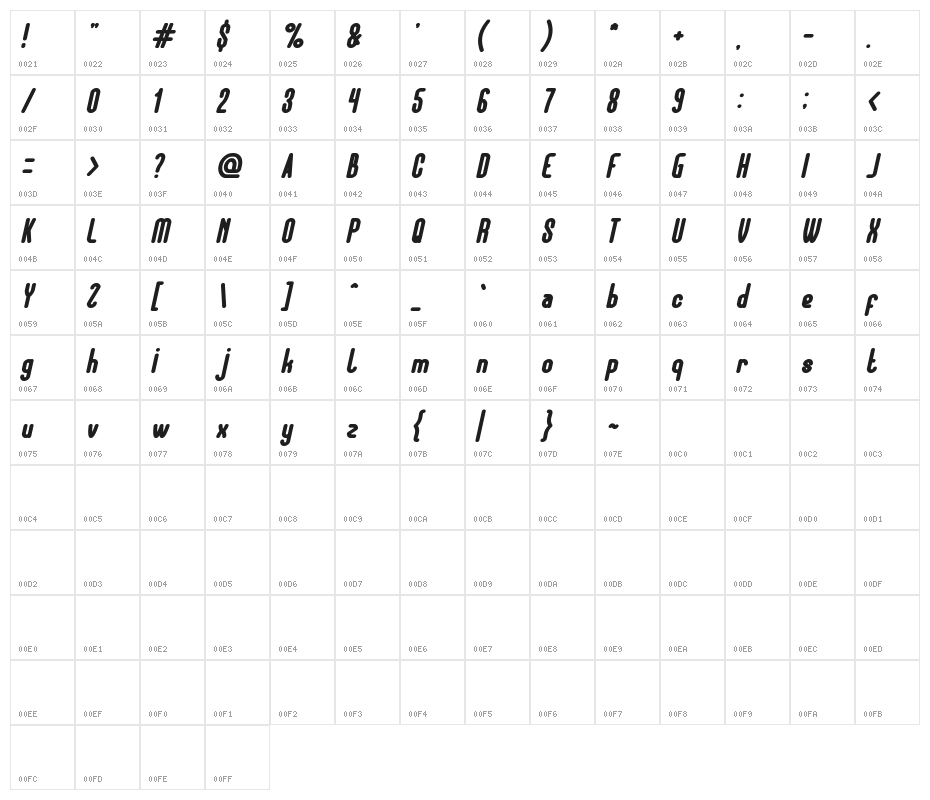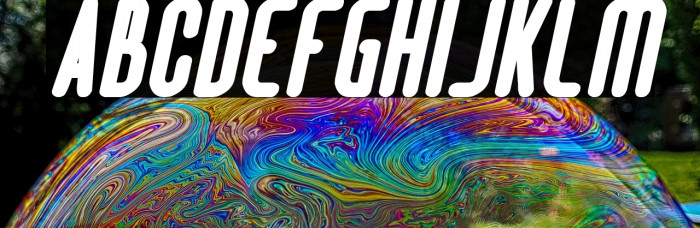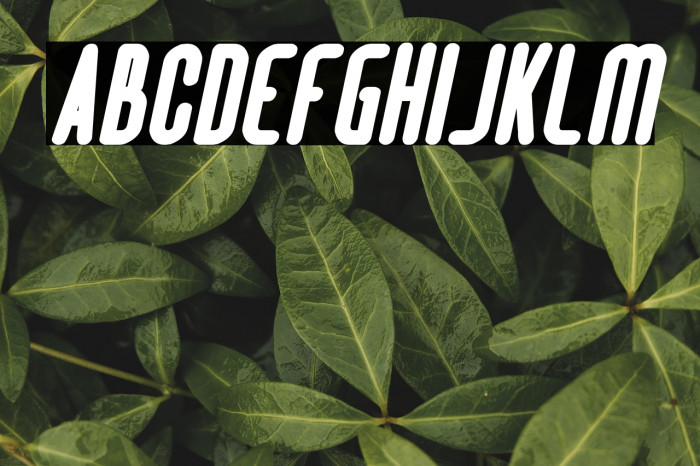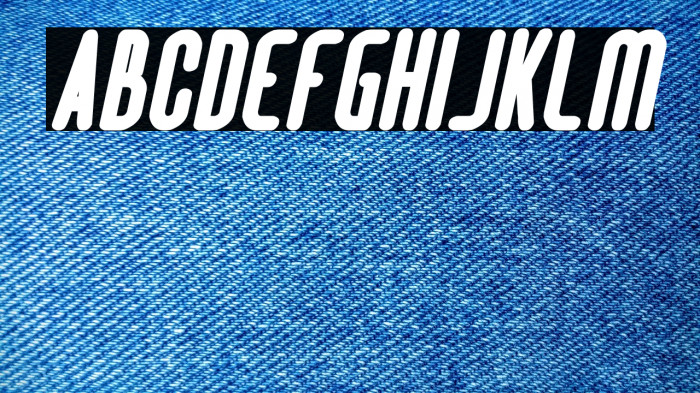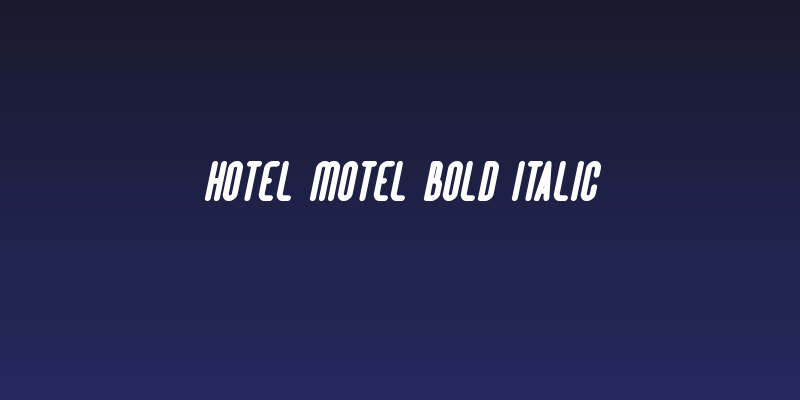
Hotel Motel Bold Italic Font
Hotel Motel Bold Italic Description
This font features a bold and italicized style with a modern and playful appearance. The characters are rounded and slightly condensed, giving a smooth and flowing look. The uppercase and lowercase letters maintain a consistent stroke width, contributing to a uniform appearance. The numerals are clear and distinct, matching the style of the alphabetic characters. Special characters are well-integrated, maintaining the overall aesthetic. This font's boldness and slant make it stand out, ideal for attention-grabbing designs.
| Proposed Projects | Ideal for branding, posters, headlines, and any design requiring a bold, playful touch. |